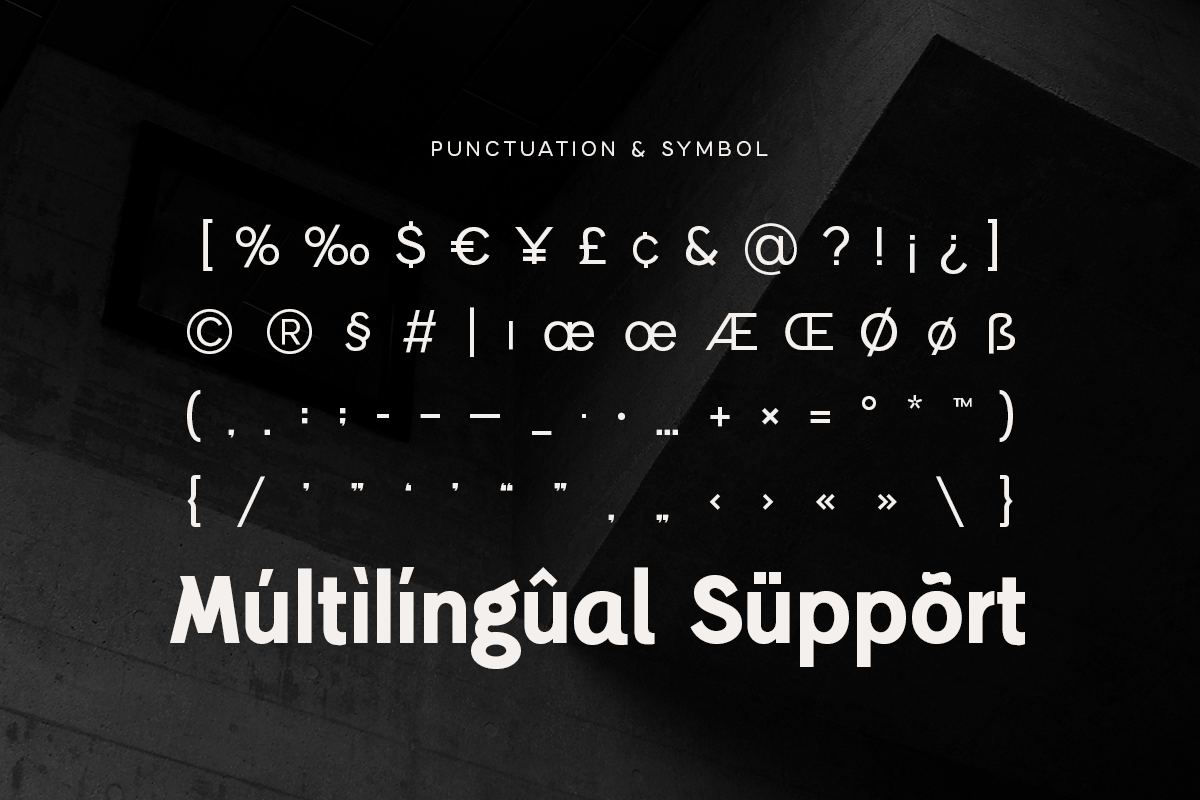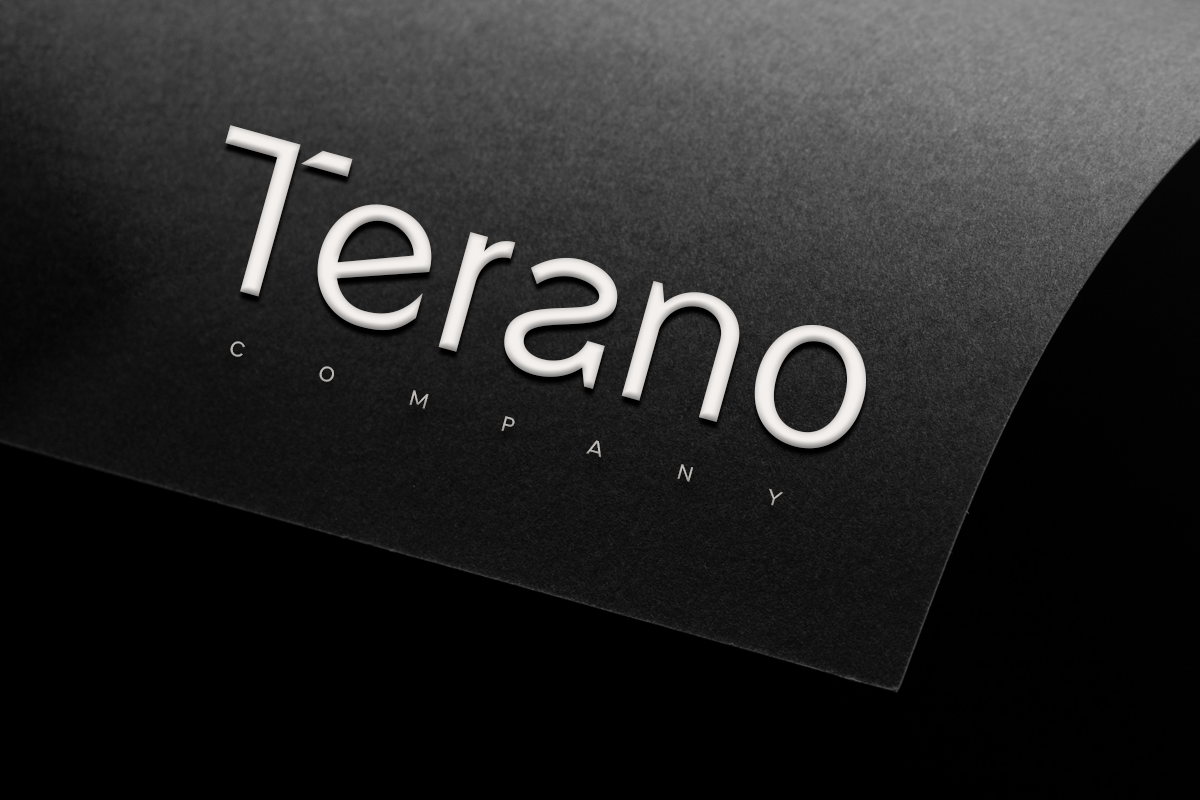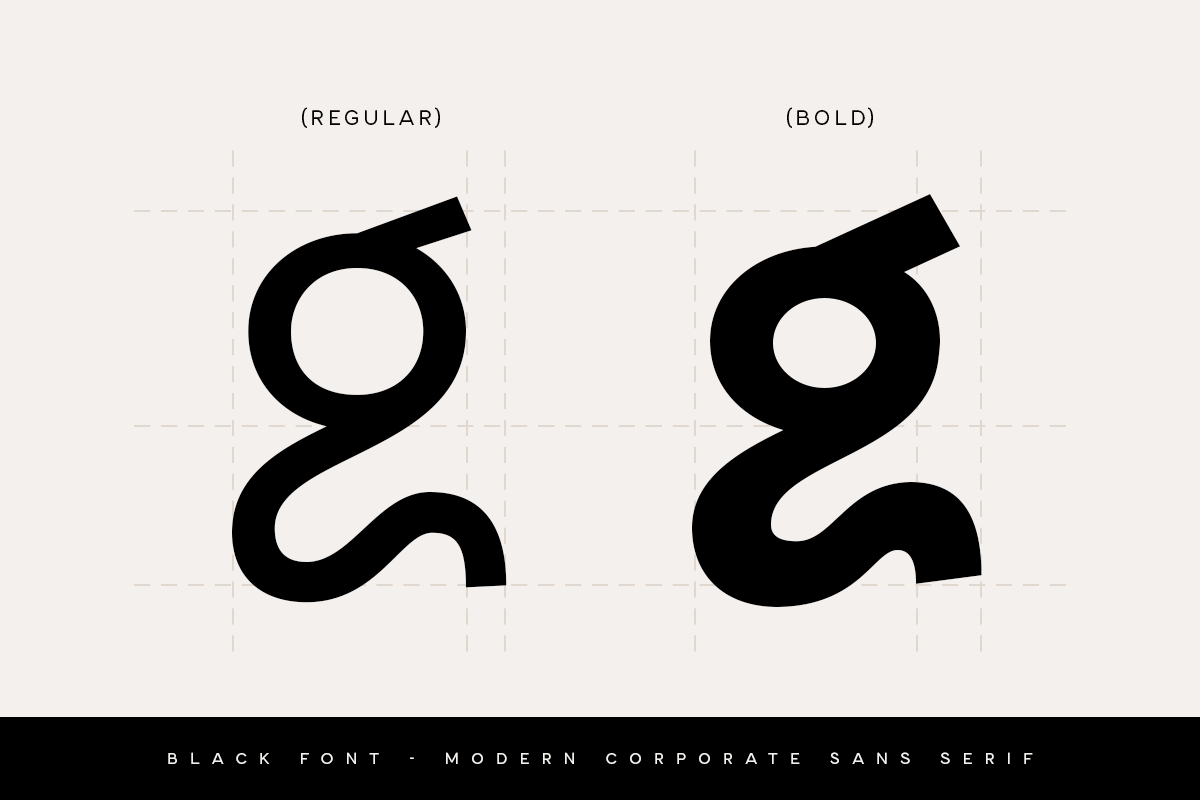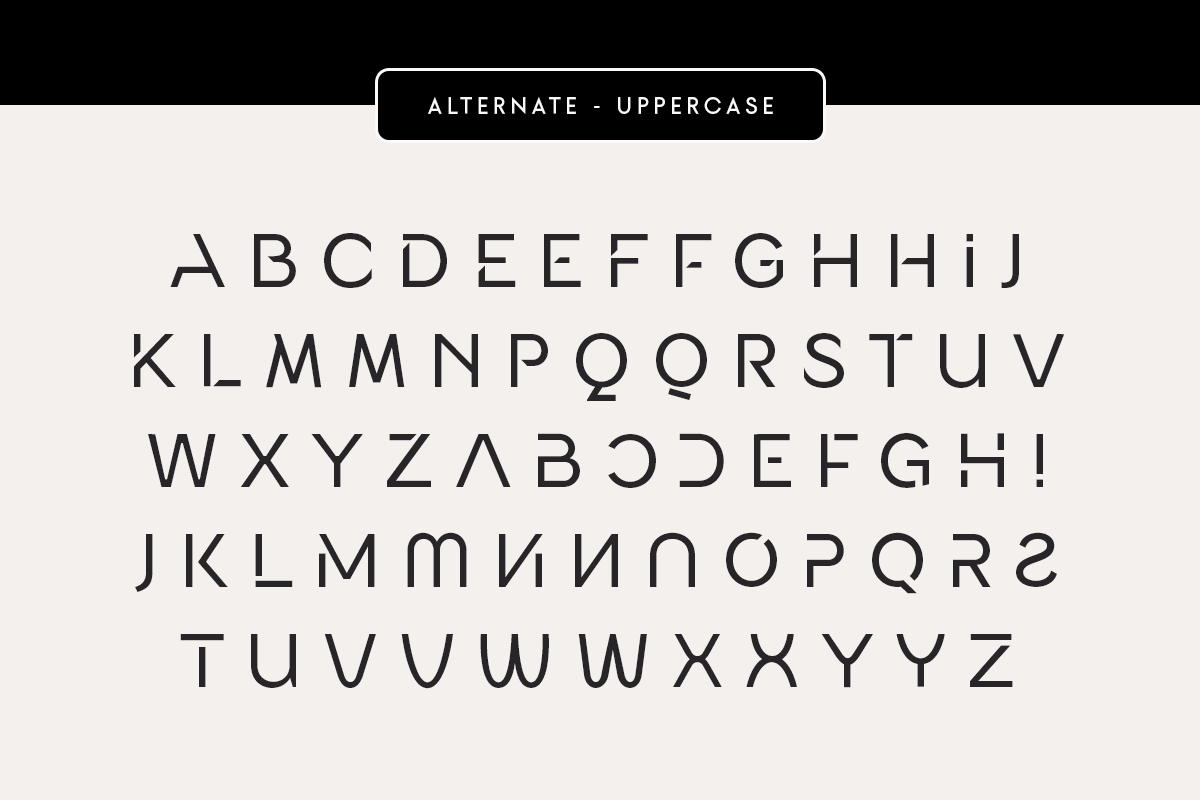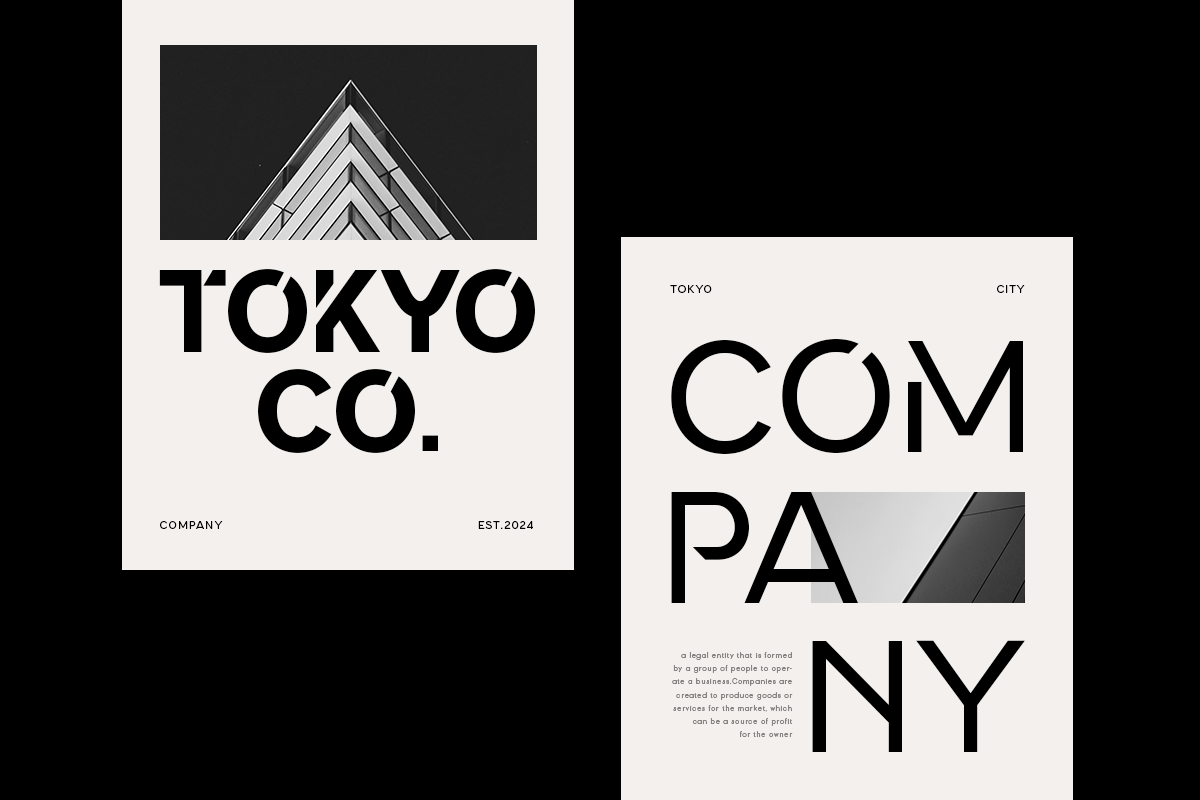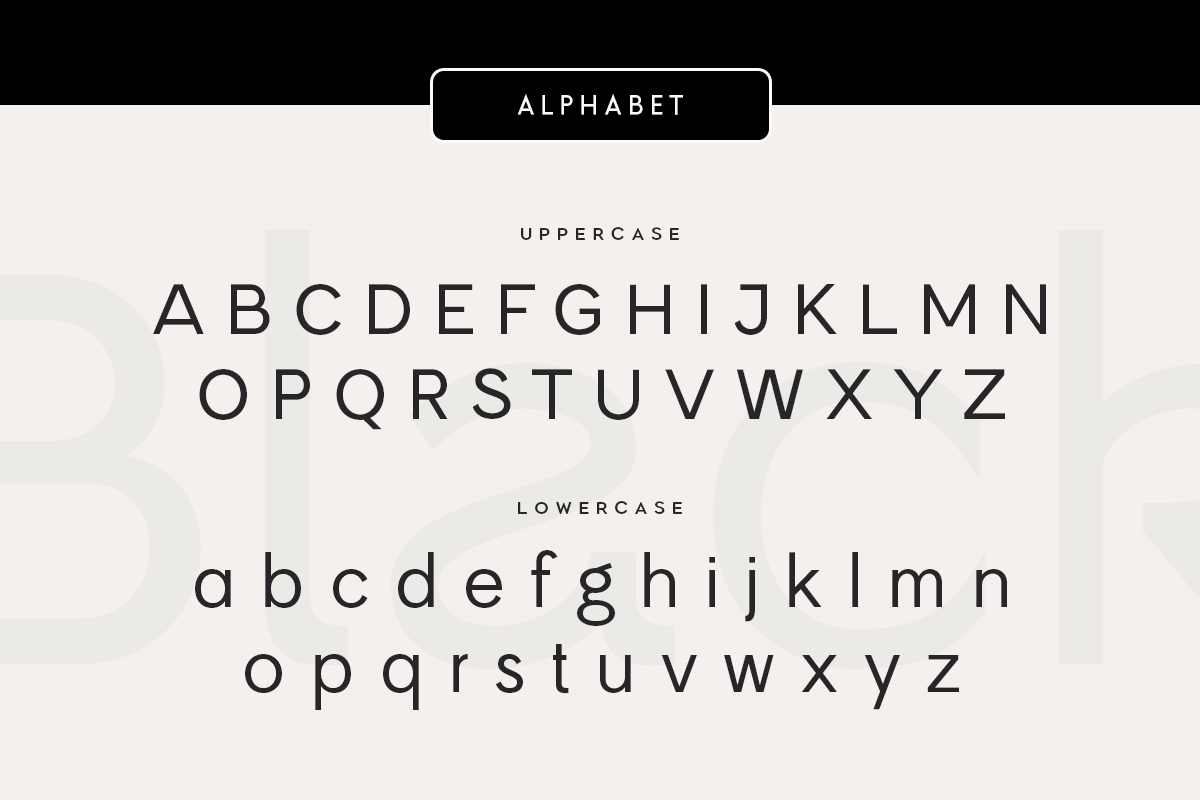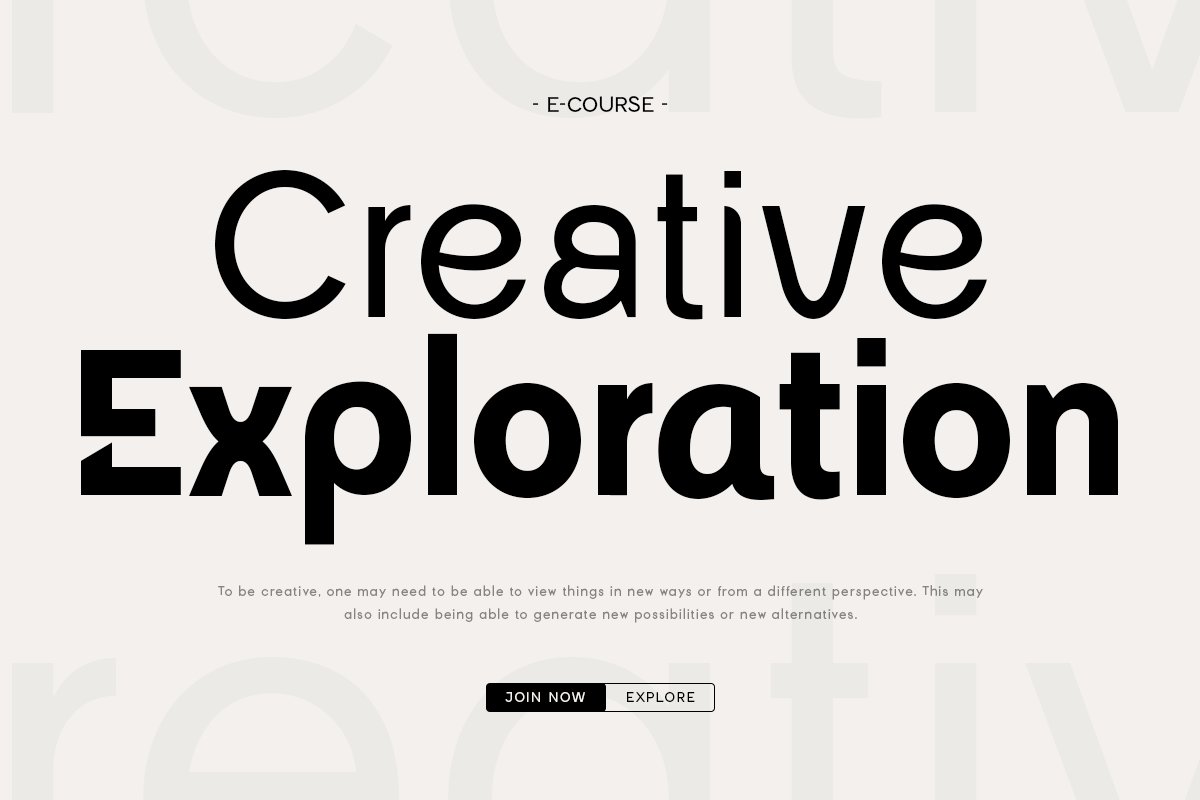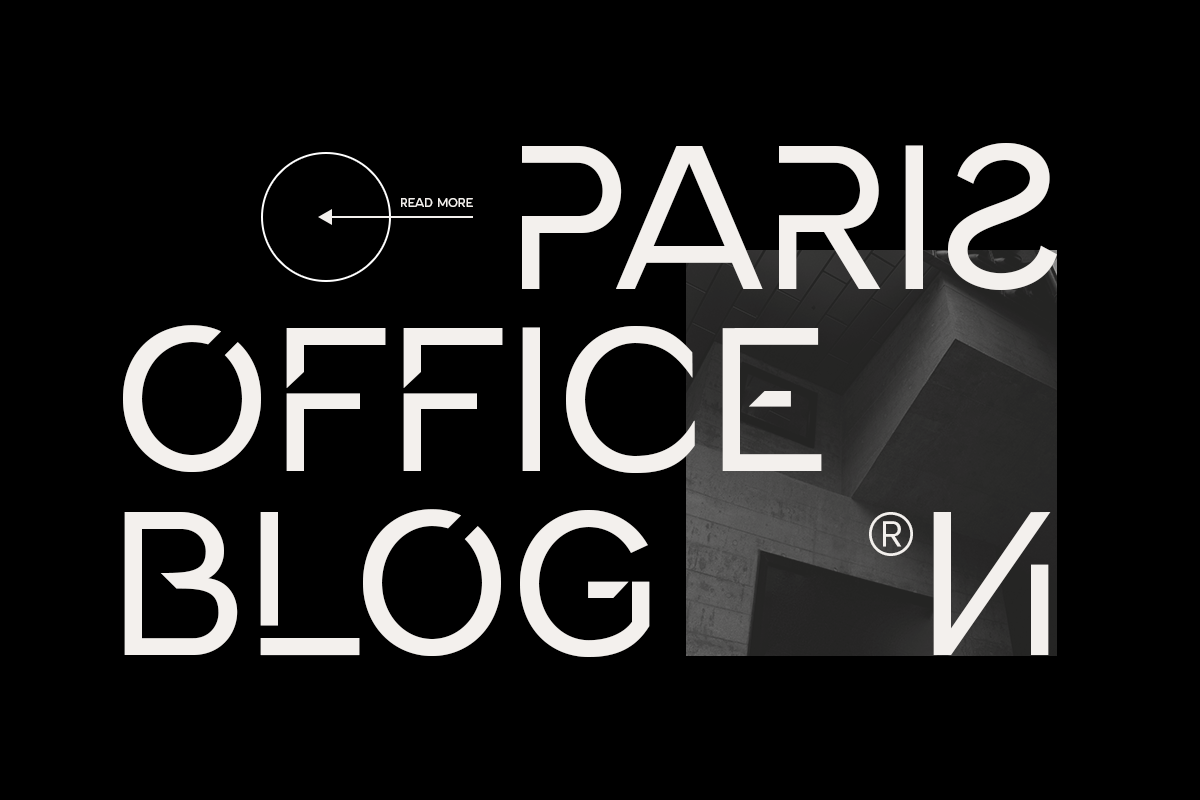
Black - Modern Corporate Sans Serif
Black is a Modern Corporate Sans Serif Font is a Corporate well-balanced modern font with a minimalist, unique, and iconic sans serif, font that you can combine to get any variations and unique shapes easily just in seconds with choose alternates of them and 2 weight for Regular and Bold. It is a sans serif font with minimalist style that perfect for branding projects, logo, poster designs, social media posts, advertisements, product packaging, product designs, label, photography, watermark, invitation, stationery, and any projects, it makes with a high level of legibility.
- Alternate Characters
- Character set A-Z